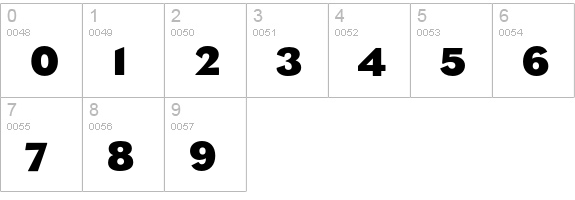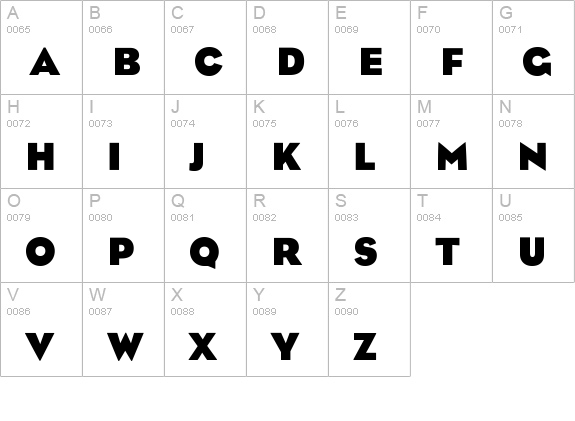
BureauEagleBold Font Details
BureauEagleBold is a bold and commanding font that exudes confidence and professionalism. With its clean lines and strong presence, this font is perfect for making a bold statement in any design project. The bold weight of BureauEagleBold ensures that your message will be seen and heard loud and clear. What's even better is that BureauEagleBold is available for free download at FontsMarket.com. This means that you can easily add this powerful font to your collection without any cost. Whether you're working on a logo, poster, or any other design project, BureauEagleBold is sure to make a lasting impression. Download it now and let your creativity soar with this impressive font.